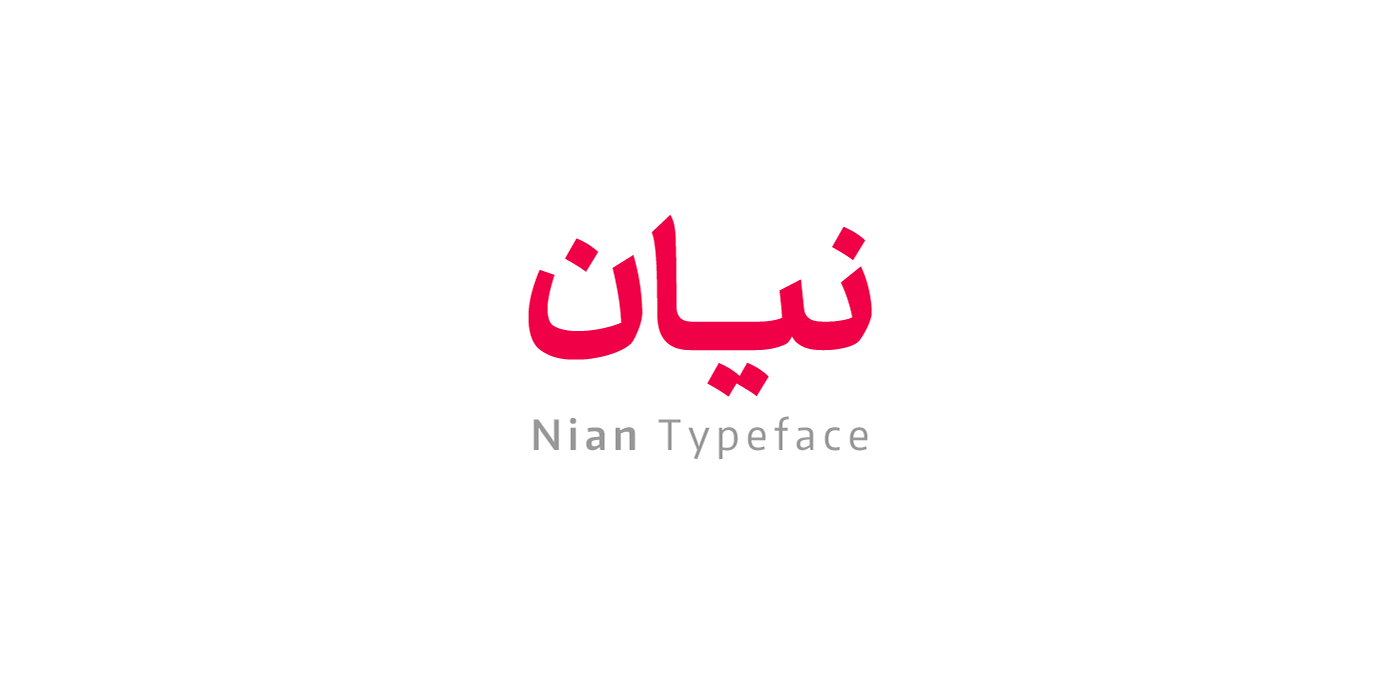
Nian Typeface
Nian is a thoughtfully crafted Persian typeface that stands apart with its special character and exclusive design elements. Each letter and symbol has been carefully considered to create a distinctive visual language that brings uniqueness and personality to any project. Whether used in graphic design, typography, or text layout, Nian offers designers a fresh, original voice for their creative work.
Design Characteristics:
• Special, unique Persian letterforms
• Exclusive design with distinctive character
• Attractive appearance for memorable projects
• Thoughtful details throughout all glyphs
• Original visual language
Special Features:
• Unique approach to Persian letter shapes
• Distinctive symbols and character forms
• Consistent exclusive styling across all letters
• Excellent readability with original character
• Versatile for various design applications
• Unique Design: Special, one-of-a-kind character
• Exclusive Features: Distinctive letter and symbol design
• Attractive Appearance: Memorable visual impact
Key Features of Nian Font:
• Unique, special Persian design
• Distinctive letter and symbol forms
• Exclusive character with memorable appearance
• Complete Persian character set
The Nian* typeface designing was focused on legibility, so it would cover other modern font’s defects, which are used for general text writings. While being modern and up to date, the typeface’s original spirit is still there. Nian is a strong typeface with a clear structure, and because of these features, more flatten forms and joints can be seen. Nian has 8 weights. The basic weights are suitable for long texts of books and magazines, and the light and bold weights are good for graphic designs and advertising. Not to mention this font supports Farsi, Arabic, Urdu, Kurdish, and Jawi languages.
Nian typeface design started in 2011. It changed gradually and completed in 2016. Then its weights were designed and completed within two years. This typeface was co-designed by Afsane Salek and me, Reza Bakhtiarifard.
*Nian means nice and lovely